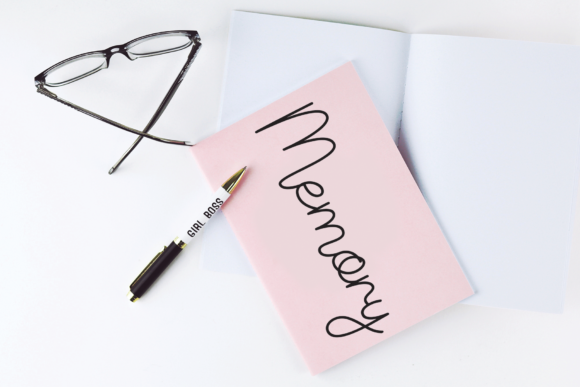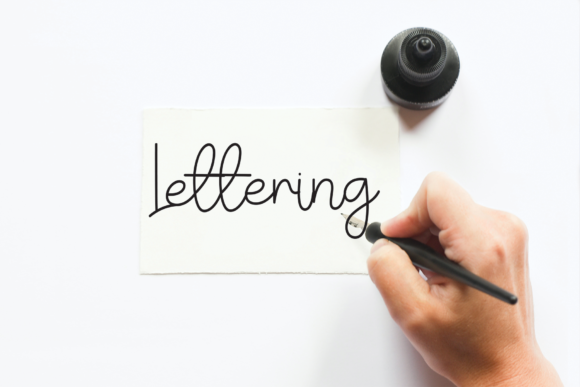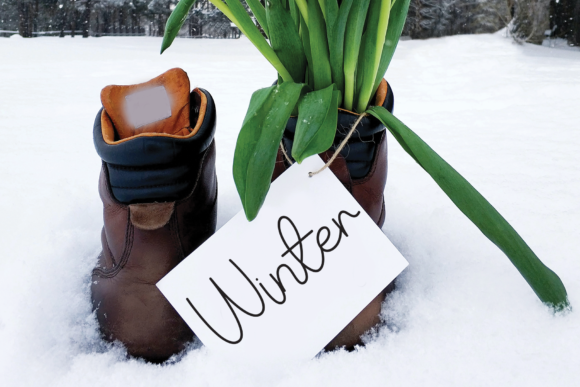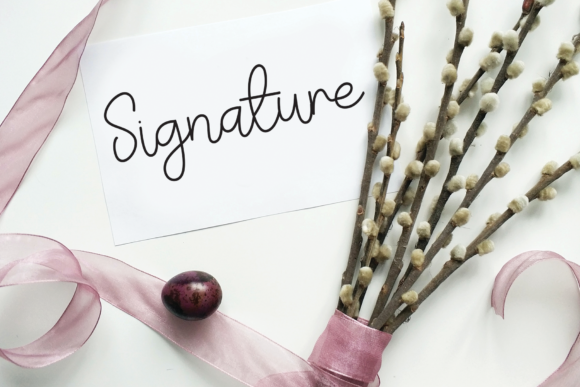
Introducing Bullet Font: A Sweet, Romantic, and Beautiful Script Font
Are you tired of using the same old fonts for your design projects? Look no further! Bullet Font is a stunning script font that is sure to add a touch of elegance and sophistication to any design. This beautiful font features gorgeous curves in each letter, making it perfect for a variety of design applications, from romantic wedding invitations to beautiful branding and packaging.
What Makes Bullet Font So Special?
Bullet Font is a sweet, romantic, and beautiful script font that is sure to capture the hearts of designers and crafters alike. Here are just a few features that make this font stand out:
- Beautiful Curves: Each letter in Bullet Font features stunning curves that give it a unique and elegant feel.
- PUA Coded: This font is PUA (Private Use Area) coded, which means that you can access all the glyphs and sweeps easily. This makes it simple to use and customize the font to suit your design needs.
- Romantic and Versatile: Bullet Font is perfect for a variety of design applications, from romantic wedding invitations to beautiful branding and packaging.
The Benefits of Using Bullet Font
There are many benefits to using Bullet Font in your design projects. Here are just a few:
- Adds Elegance and Sophistication: Bullet Font is sure to add a touch of elegance and sophistication to any design.
- Perfect for Romantic Designs: The romantic and beautiful curves of Bullet Font make it perfect for wedding invitations, Valentine’s Day cards, and other romantic designs.
- Easy to Use: The PUA coding of Bullet Font makes it simple to access all the glyphs and sweeps, making it easy to use and customize.
- Versatile: Bullet Font can be used for a variety of design applications, from branding and packaging to social media graphics and more.
How to Use Bullet Font in Your Design Projects
Using Bullet Font in your design projects is easy! Here are a few tips to get you started:
- Pair it with Other Fonts: Bullet Font looks great when paired with other fonts, such as sans serif fonts or bold script fonts.
- Use it for Headings and Titles: The elegant curves of Bullet Font make it perfect for headings and titles.
- Customize it: With PUA coding, you can easily access all the glyphs and sweeps to customize the font to suit your design needs.
Who is Bullet Font For?
Bullet Font is perfect for designers and crafters who are looking for a beautiful and elegant script font to add to their collection. Here are a few examples of who may benefit from using Bullet Font:
- Graphic Designers: Bullet Font is perfect for graphic designers who are looking for a beautiful script font to use in their designs.
- Crafters: Crafters who create handmade cards, invitations, and other paper crafts will love using Bullet Font in their projects.
- Small Business Owners: Small business owners who are looking for a unique and elegant font to use in their branding and marketing materials will love Bullet Font.
In conclusion, Bullet Font is a sweet, romantic, and beautiful script font that is sure to add a touch of elegance and sophistication to any design. With its stunning curves and PUA coding, it’s easy to use and customize. Whether you’re a graphic designer, crafter, or small business owner, Bullet Font is a great addition to your font collection.